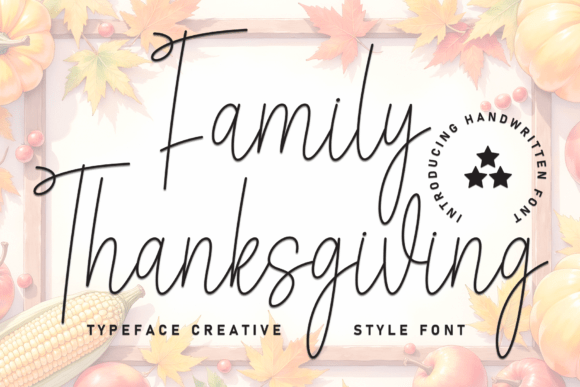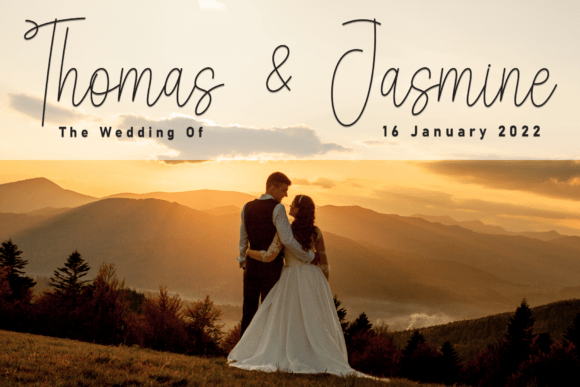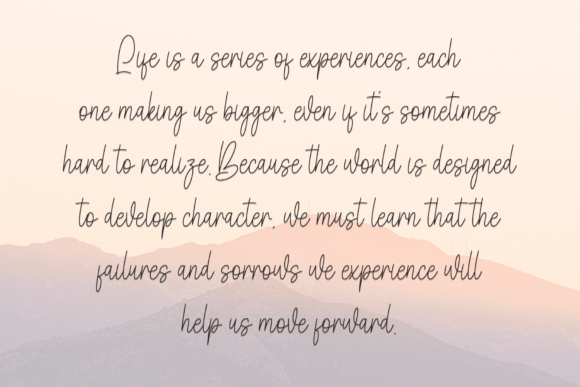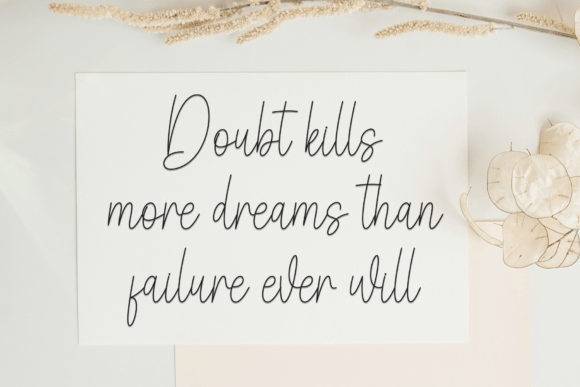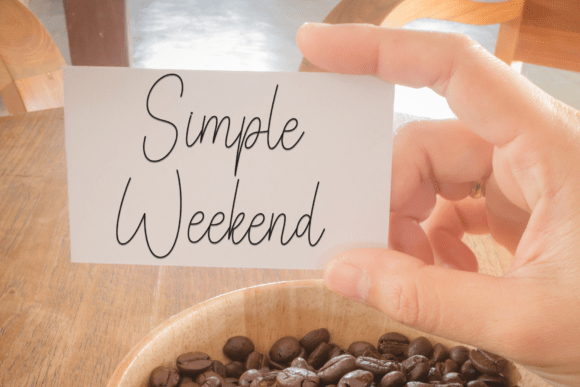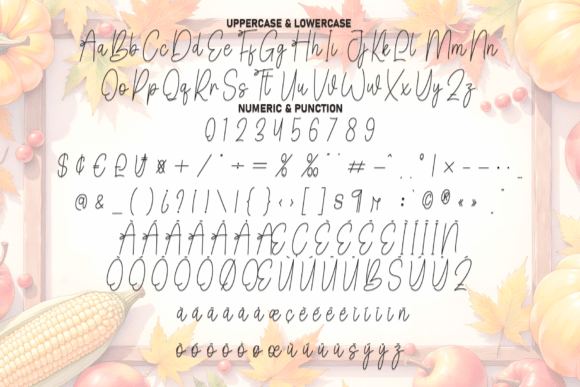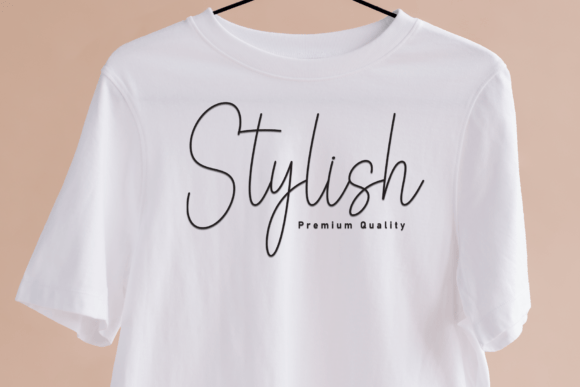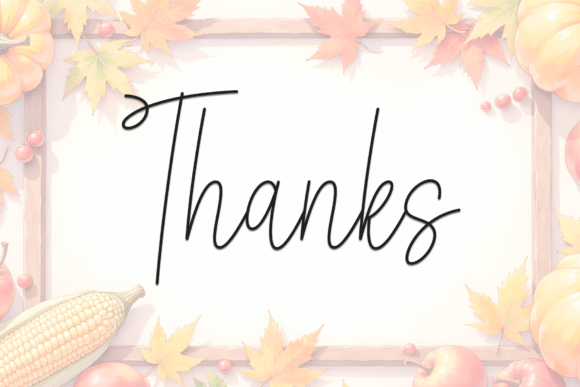
Family Thanksgiving Script Fonts
Cultivate a sense of genuine connection with Family Thanksgiving, a slender monoline script designed to evoke the intimacy of a handwritten letter. Defined by its fluid, elongated flourishes and a weightless touch, this typeface offers a breezy elegance that resonates with the heart of autumn. It serves as an evocative choice for pastoral-chic visual identities, boutique culinary labels, and evocative seasonal campaigns that prioritize a tactile, human feel. From rustic packaging to minimalist digital layouts, its unhurried rhythm brings a serene, artisanal warmth to every composition.